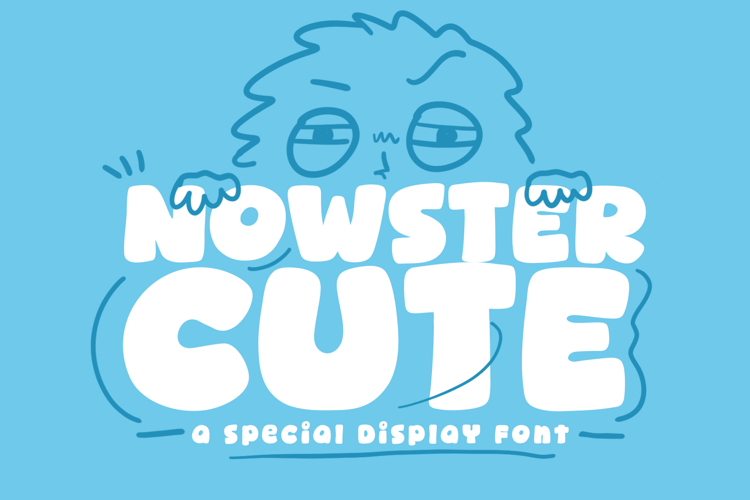
Nowster Cute is a bold, playful font designed for creators who love a touch of whimsy. With its organic shapes and full multilingual support (including symbols and fractions), this font is as functional as it is cute. Perfect for everything from lifestyle branding to nursery decor—stay cozy and design playful!